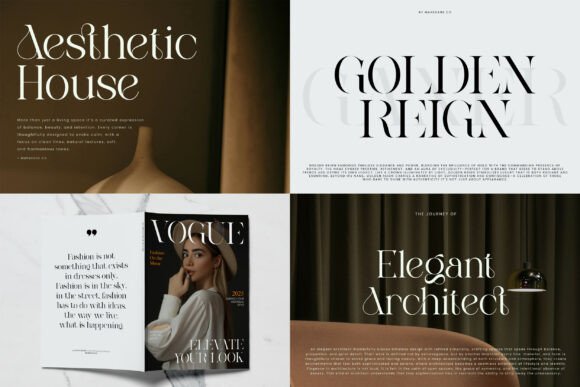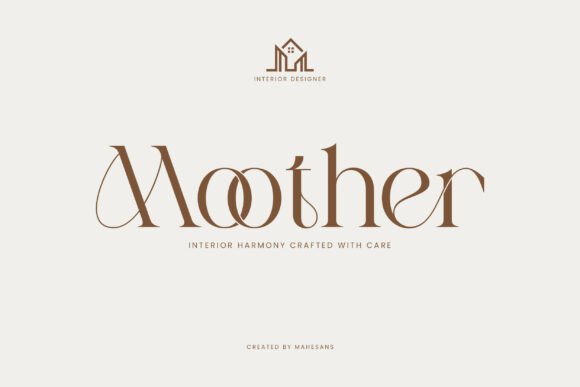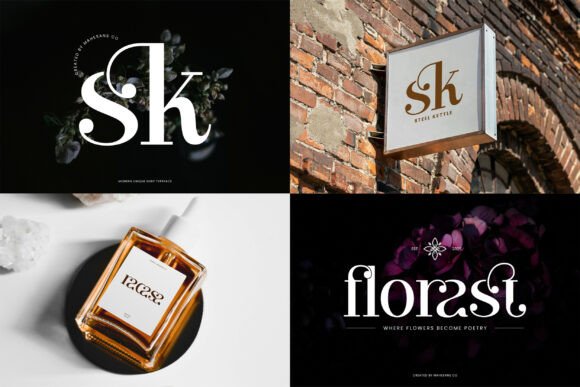
Introduction to Modern Serif Bundle Font
Remember the moment when you stumbled upon the perfect font that transformed your entire design project? It’s like finding the missing piece to a puzzle, and everything just clicks into place. That’s exactly what the Modern Serif Bundle Font is designed to do – provide you with a treasure trove of elegant, stylish, and versatile serif fonts that will elevate your branding, logos, and creative projects to the next level.
As a designer, you know the importance of having high-quality design resources at your fingertips. The Modern Serif Bundle Font is a game-changer, offering a wide range of premium serif fonts that are perfect for logos, editorial design, packaging, social media, and more. With a transparent background and free download, you can focus on creating stunning designs without worrying about the technicalities.
Key Features of Modern Serif Bundle Font
- High-quality typography with a wide range of styles and weights, perfect for any creative project.
- Includes 10 unique serif fonts with transparent backgrounds, ideal for designing on a variety of backgrounds.
- Designed to be versatile and adaptable, making it perfect for a wide range of creative projects, from print to digital design.
Honest Review: Modern Serif Bundle Font
I’ve had the chance to play around with the Modern Serif Bundle Font and I must say it’s a solid addition to any design resource collection. With its high quality, this font bundle offers a range of styles that can elevate any creative project.
- Wide range of font styles and weights
- Transparent background, making it easy to use on any design
- Well-organized and easy to navigate
- Some fonts may not be suitable for display use, best suited for body text
- Limited language support, may not be ideal for multilingual projects
- Not as extensive as some other font bundles on the market
Use the Modern Serif Bundle Font in conjunction with other design elements to create a cohesive and professional look. Experiment with different font sizes, colors, and styles to find the perfect combination.
The Modern Serif Bundle Font is ideal for business cards, resumes, and other professional documents. It’s also great for creating engaging presentations and reports.